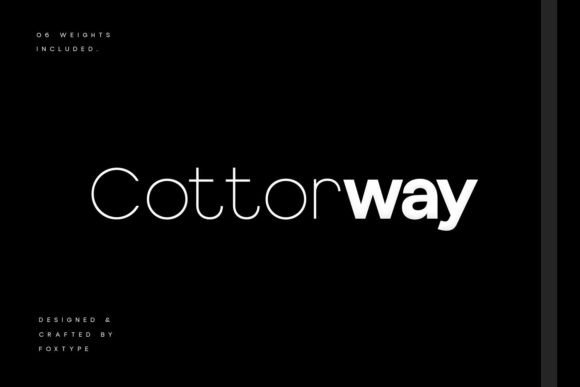
Behold, Cotterway Display: A Typographic Masterpiece for Unforgettable Visual Communication
In a world saturated with visual noise, your words need a typeface that commands attention, captivates hearts, and leaves an indelible mark on your audience's minds. Introducing Cotterway Display, a brand-new elegant typeface that transcends the boundaries of ordinary fonts.
Crafted with meticulous precision by Foxtype, Cotterway Display is a symphony of flowing lines, graceful curves, and unwavering style. Its dependable and uncompromising nature ensures that your message is conveyed with clarity and impact, leaving no room for misinterpretation.
Unleash your creativity and explore the endless possibilities that await with Cotterway Display. Whether you're crafting logos that demand attention, headlines that ignite curiosity, or paragraphs that captivate readers, this versatile typeface will elevate your designs to new heights.
Dare to be different, to stand out from the crowd, to make a statement that resonates with your audience. Cotterway Display is the key to unlocking your creative potential and leaving a lasting impression on the world.
Step into the spotlight and let Cotterway Display be your guiding light. Its controlled letterforms and modern touches create a timeless aesthetic that complements any design project. Witness the transformation as your words come alive, imbued with a sense of elegance and sophistication.
With Cotterway Display at your fingertips, you'll discover a world of limitless possibilities. Experiment with a wide range of applications, from branding and headlines to captions, paragraphs, and posters. The various weights allow you to fine-tune your designs, ensuring that every element harmonizes perfectly.
Experience the beauty and readability of Cotterway Display firsthand. Immerse yourself in its clean, minimalist, and warm embrace, and let your creativity flourish without boundaries. Its quirky yet versatile nature ensures that your designs will always be fresh, relevant, and captivating.